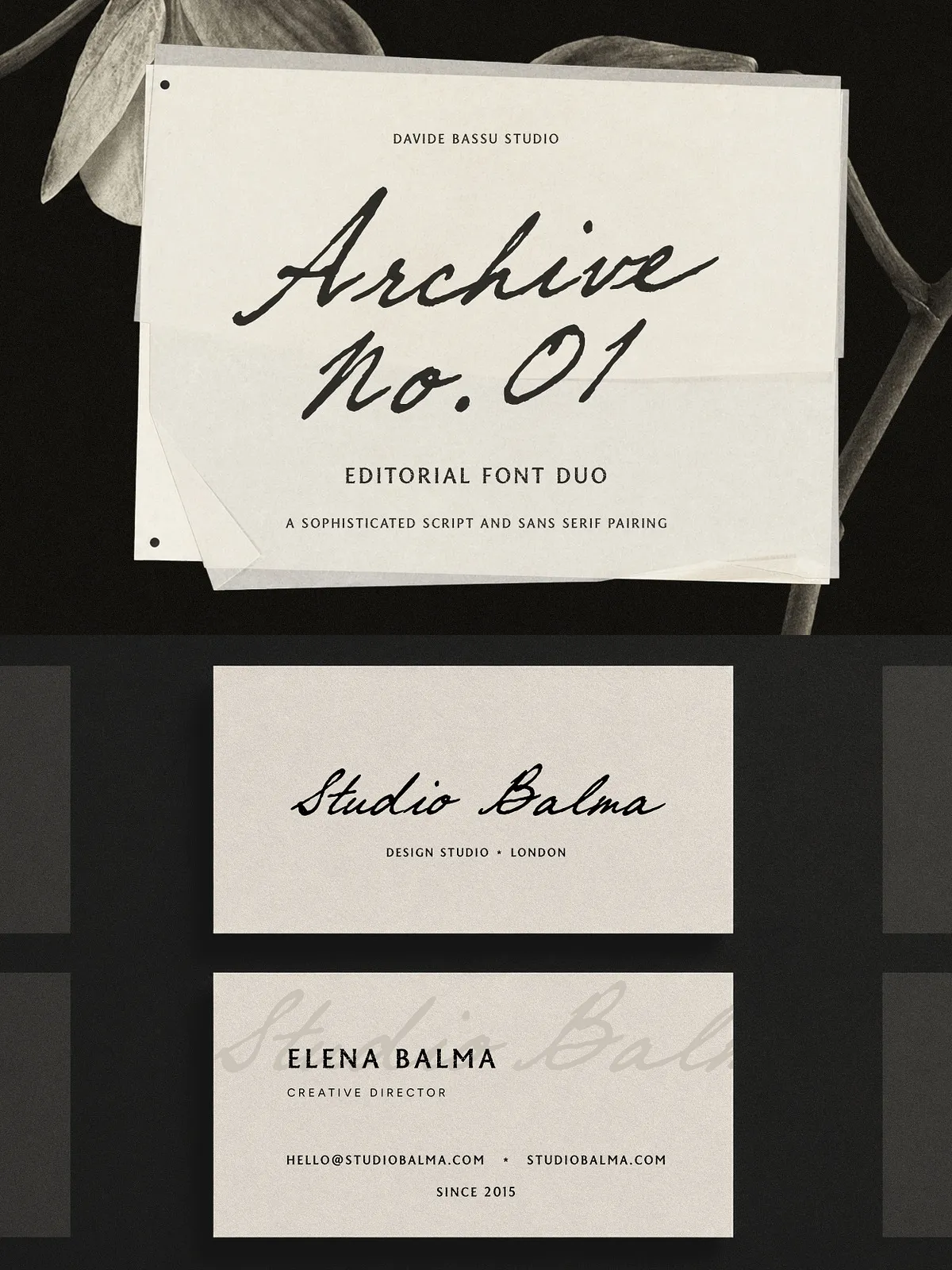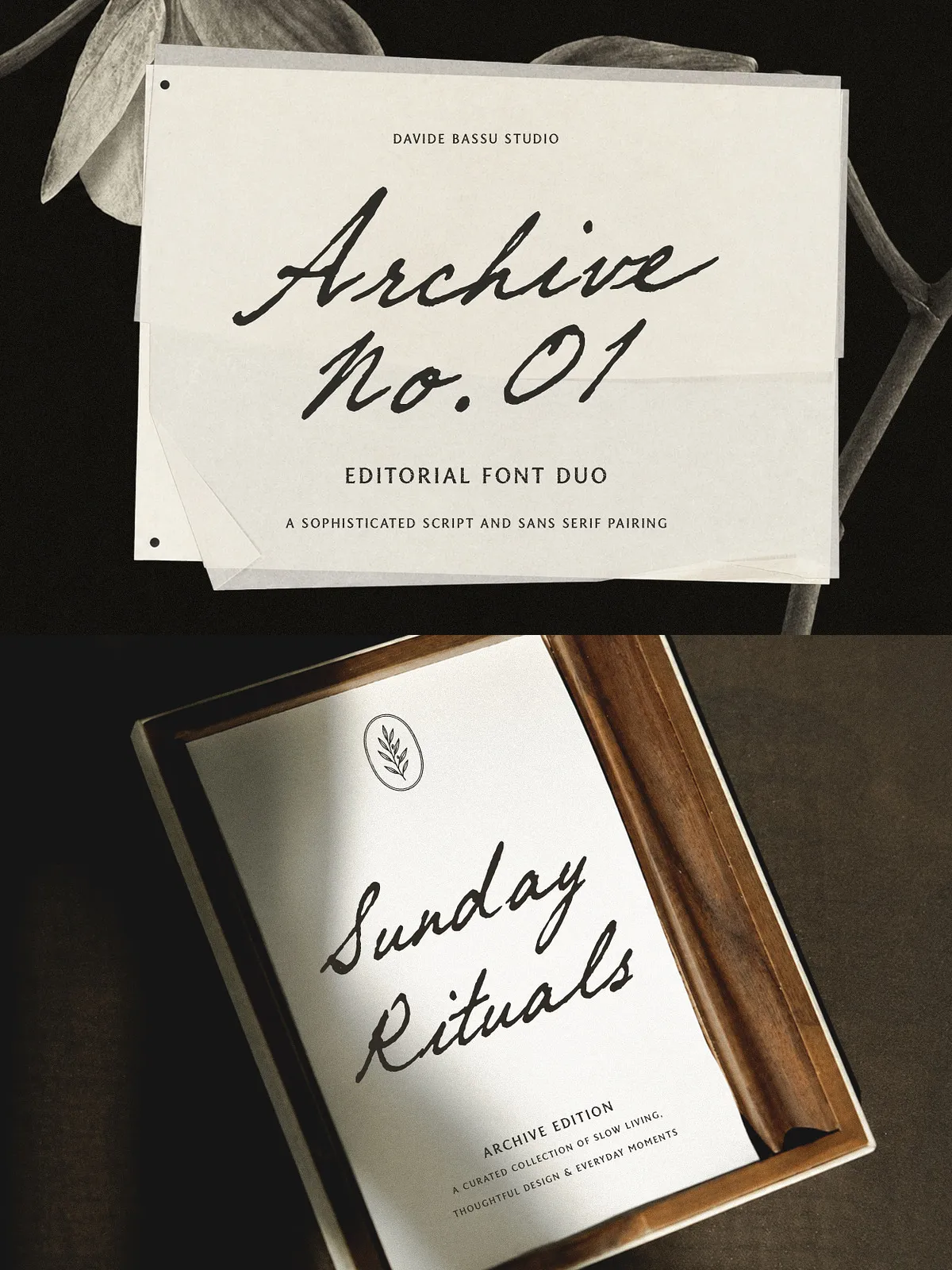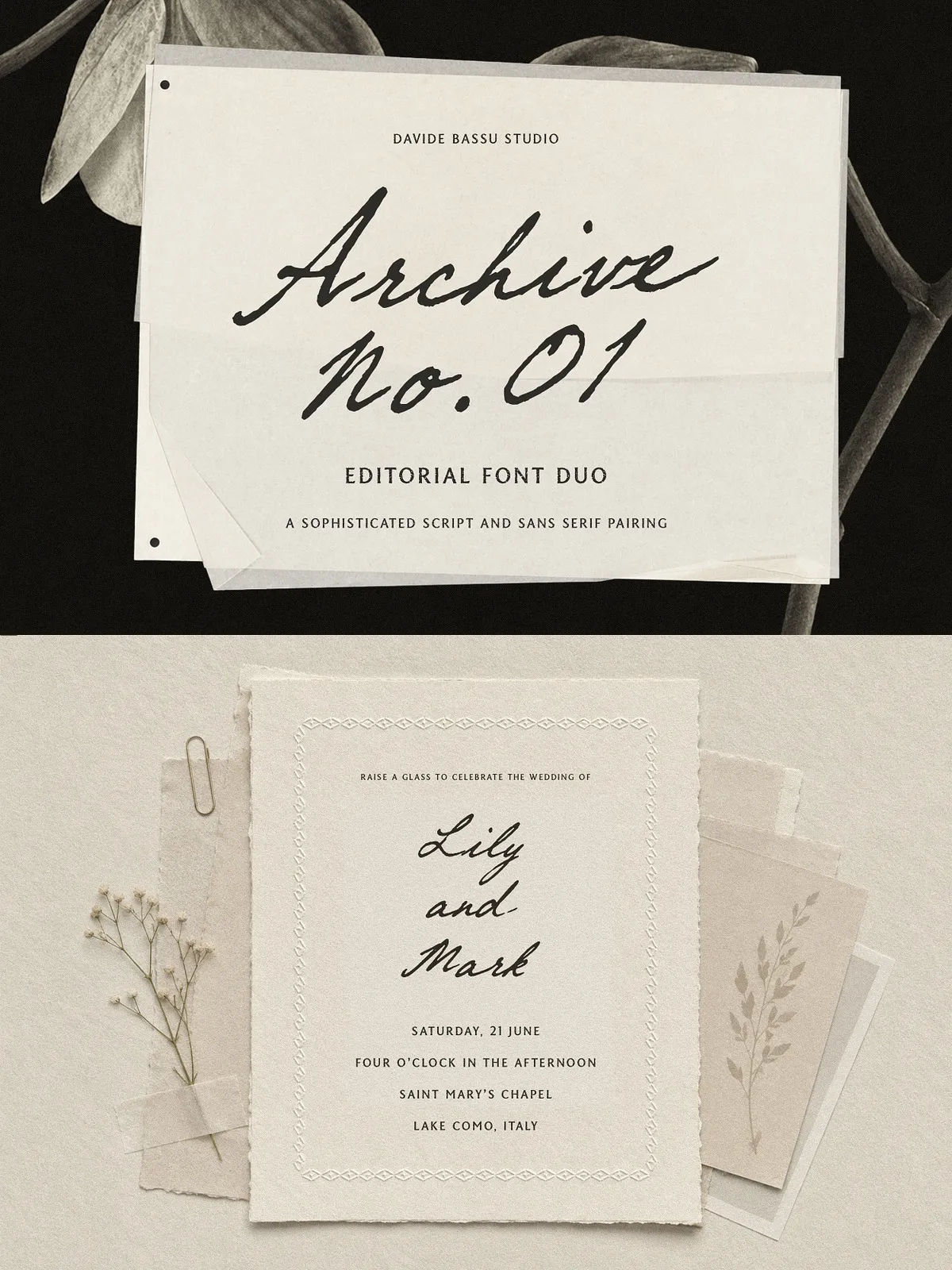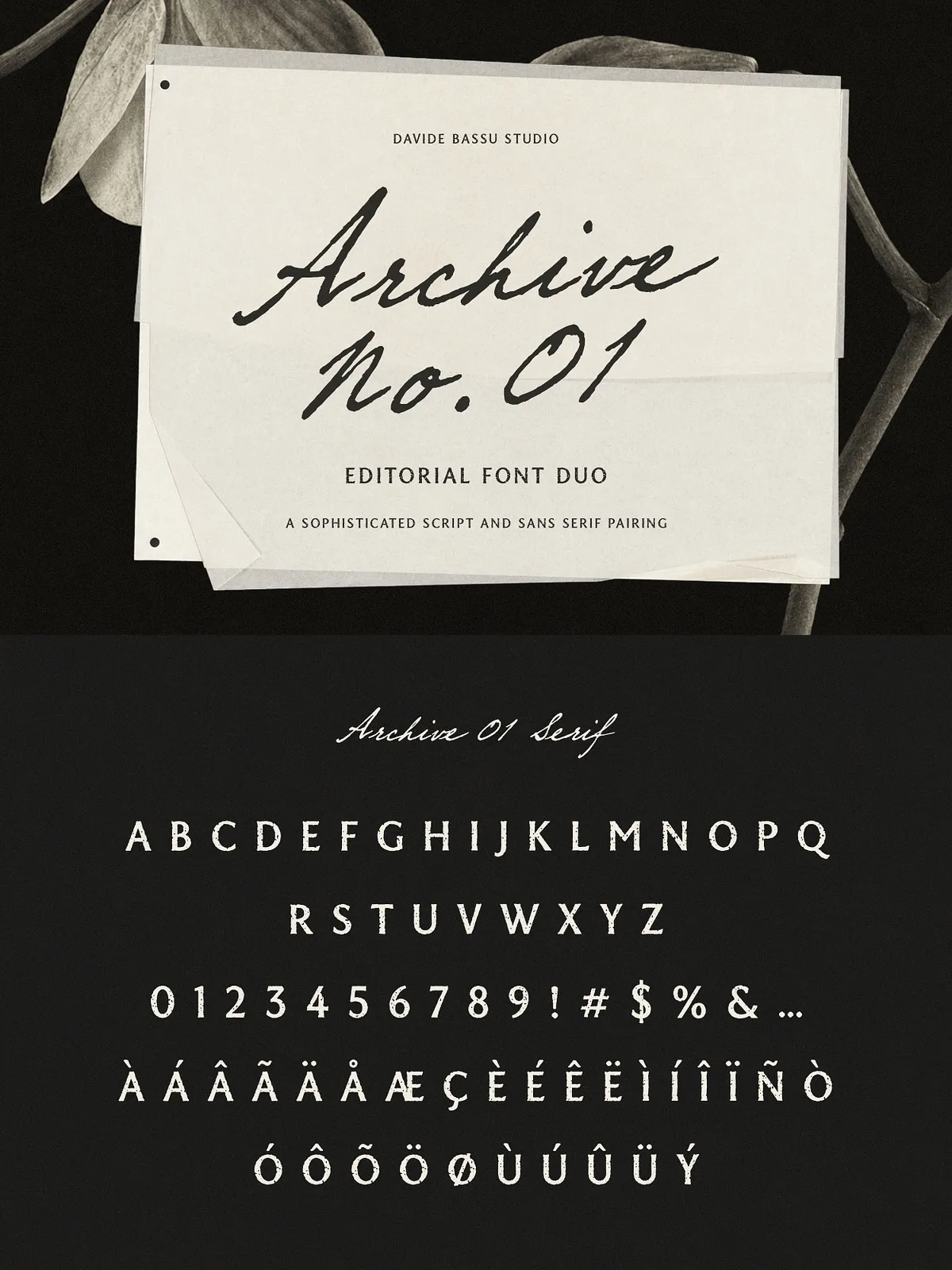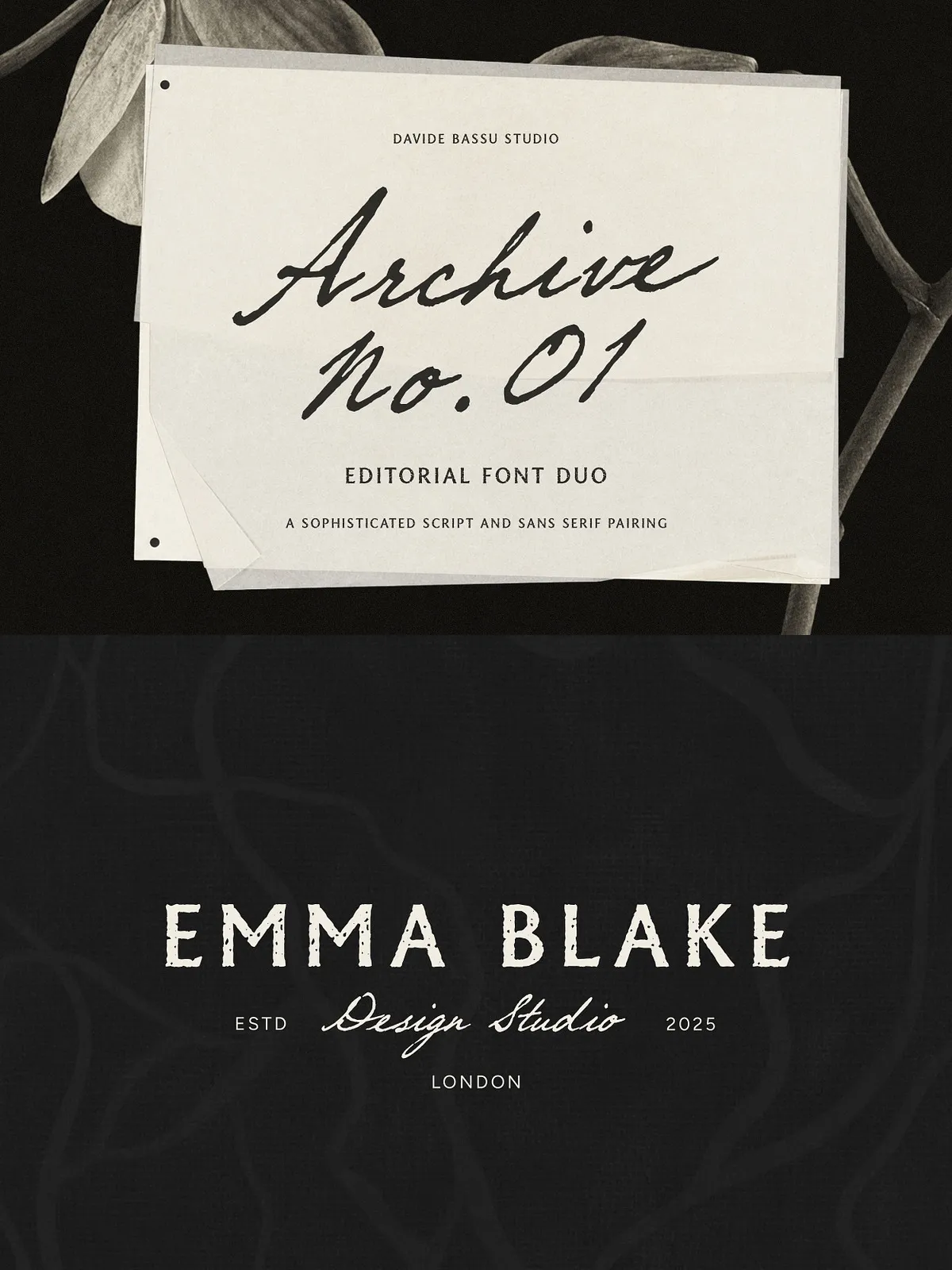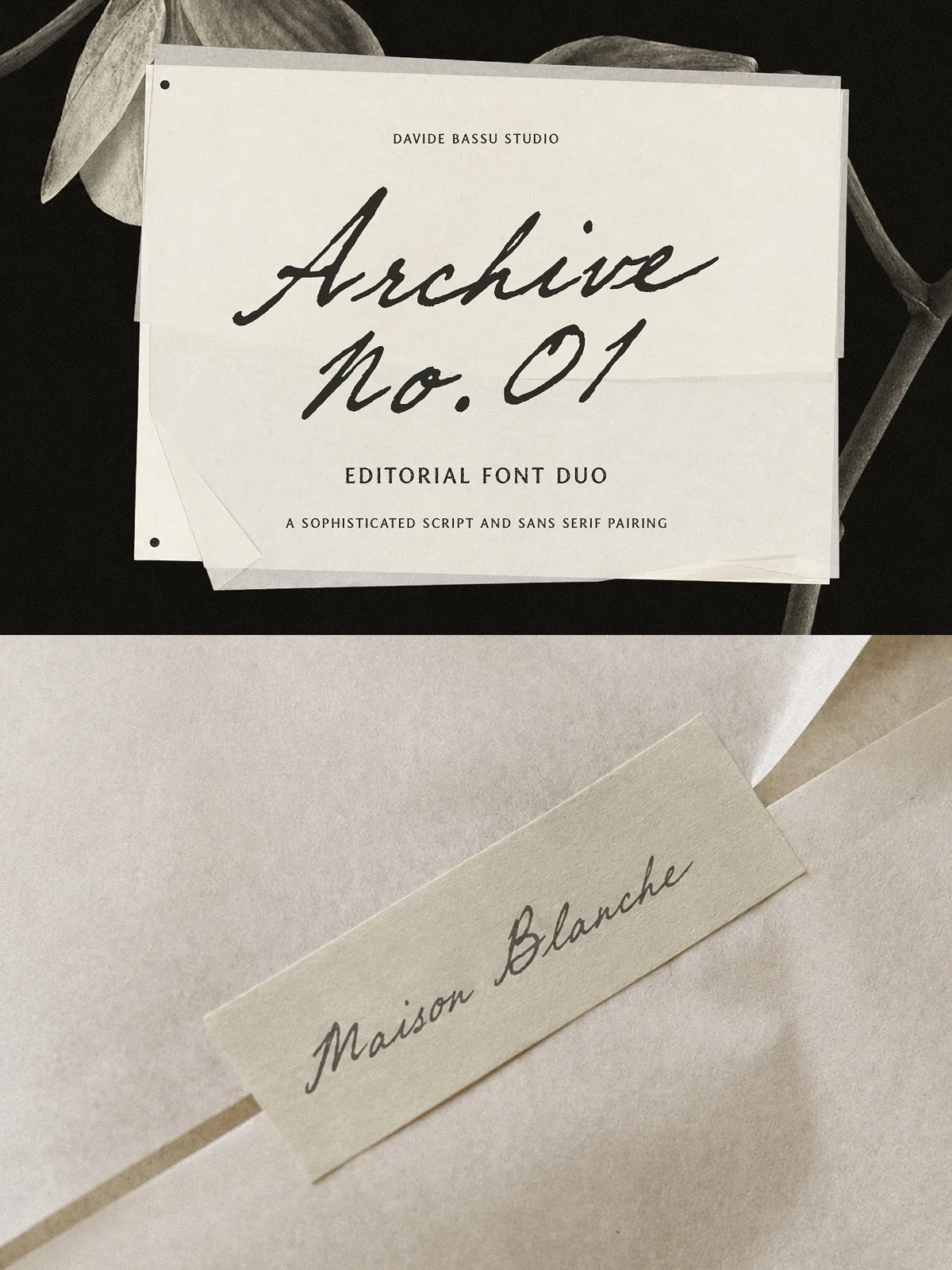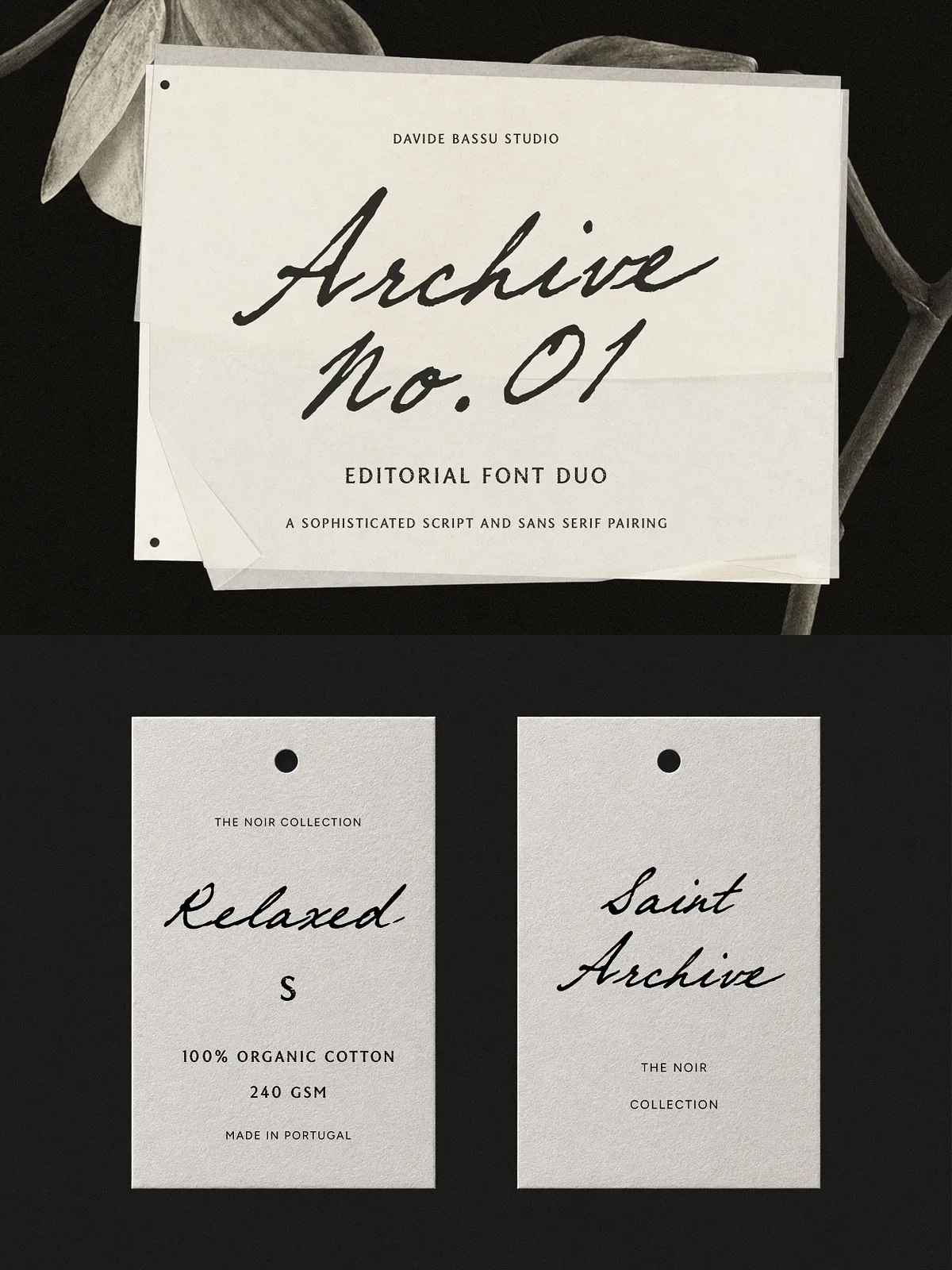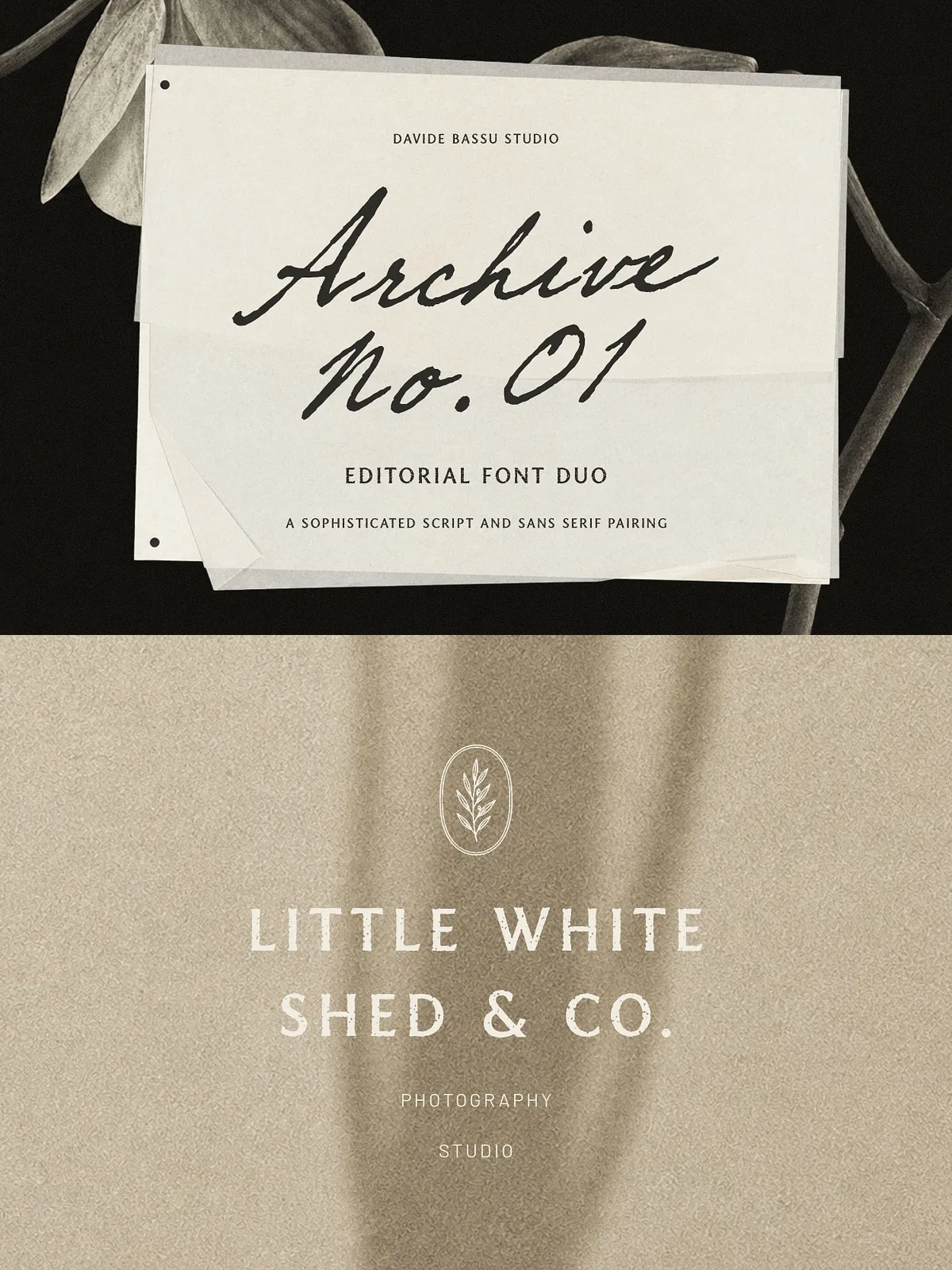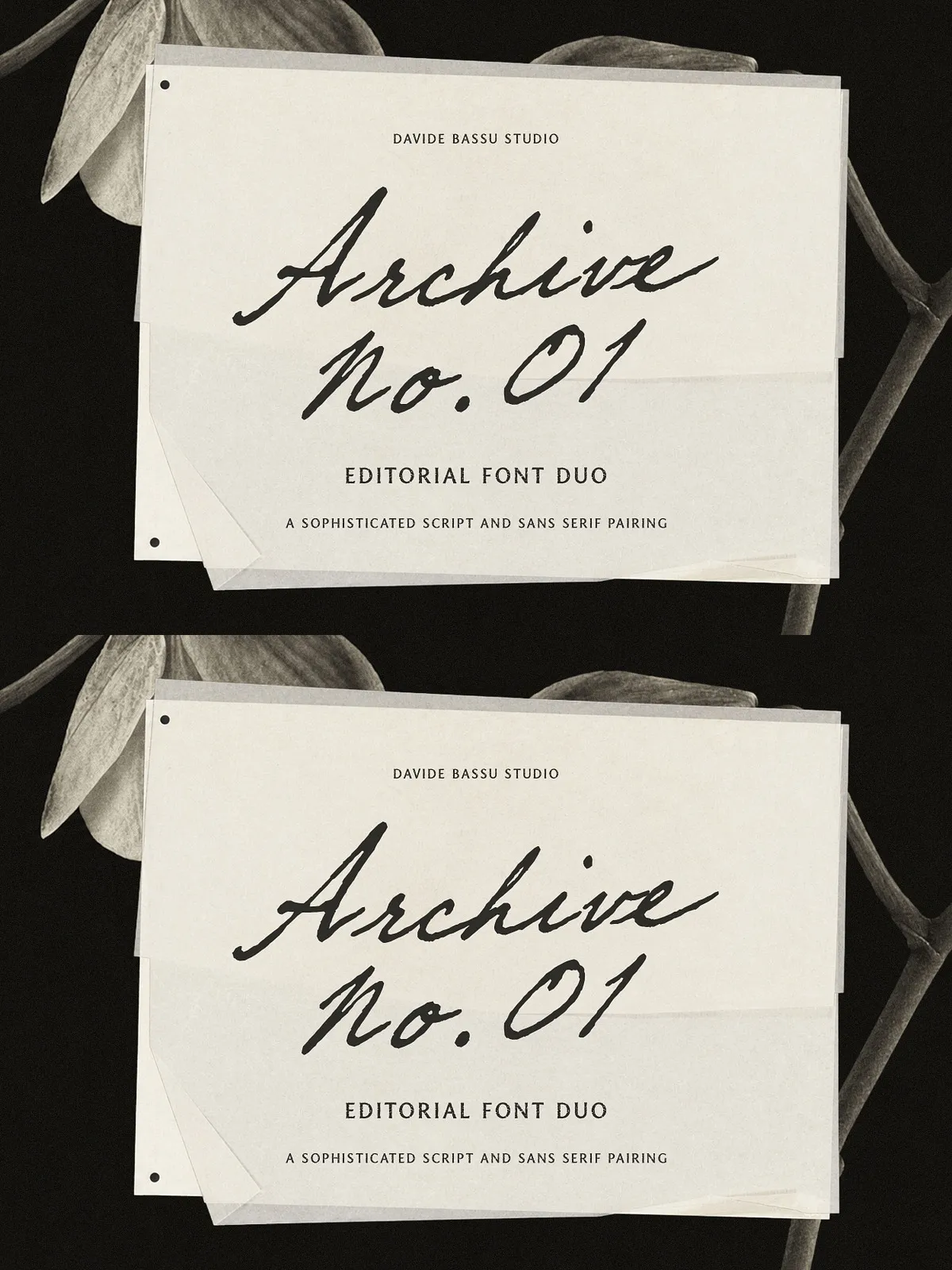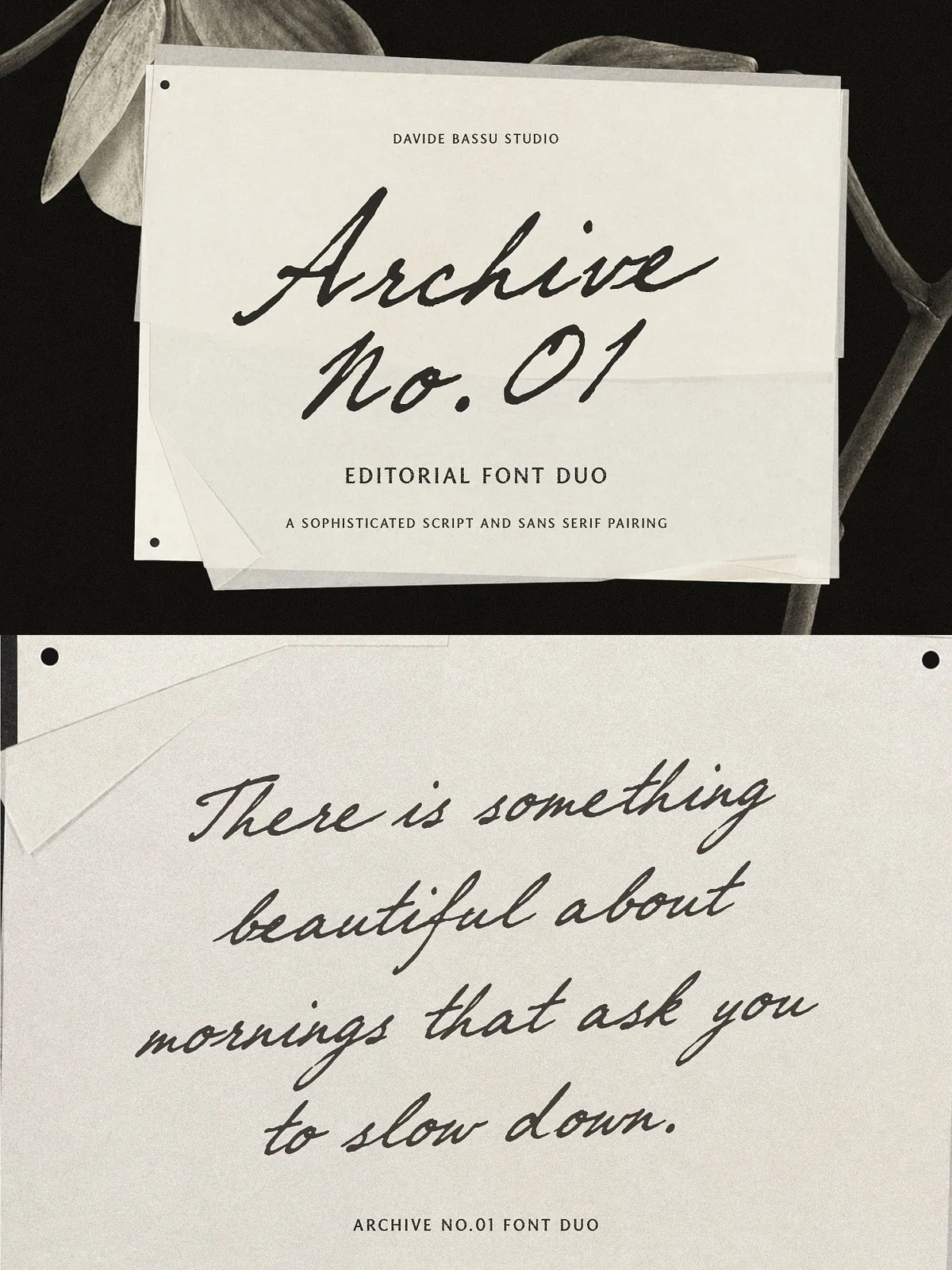
Meet Archive No. 01, a meticulously crafted font duo designed for professionals who value the intersection of classic elegance and contemporary expression. This collection brings together the structural integrity of a high-contrast serif typeface with the fluid personality of an expressive handwritten script, creating a versatile typographic toolkit that adapts seamlessly to your creative vision.
The serif component draws inspiration from traditional editorial design, offering a clean, sophisticated presence that commands attention. Its sharp serifs and varied stroke weights convey authority and luxury, making it an ideal choice for headlines, logos, and high-end marketing materials. Paired with this is the script component, which introduces warmth and organic movement. The script features naturally flowing letterforms that mimic the grace of hand-lettering, adding a touch of human elegance to any design.
Archive No. 01 is not just a font; it is a design solution. Whether you are crafting a brand identity for a fashion house, designing intricate wedding stationery, or laying out a premium magazine, this duo provides the perfect balance of structure and flair. Its ability to bridge the gap between rigid formality and relaxed creativity makes it an essential asset for modern designers.
Key Features and Specifications
Archive No. 01 is built to support a wide range of design workflows, from print to digital. The family is comprehensive, ensuring that you have every character needed for professional, multi-language projects.
- Complete Font Duo: Includes a robust High-Contrast Serif, a Script Regular, and a Script Slanted. This variety allows for dynamic typographic contrast within a single composition.
- Extensive Character Set: Features fully supported Uppercase and Lowercase letters, ensuring that you can create cohesive designs across all alphabetic contexts.
- Numbers & Punctuation: Includes complementary numerals and punctuation marks that match the style and weight of the lettering, maintaining visual consistency.
- Western European Language Support: Extensive support for Western European languages means you can use Archive No. 01 in global projects without compromising on typography or readability.
Ideal Applications for Archive No. 01
The versatility of Archive No. 01 makes it suitable for a diverse array of industries and project types. Here is how you can leverage this font duo to enhance your designs.
1. Luxury Branding and Fashion
Use the high-contrast serif to establish a strong brand presence, and pair it with the script for product names or taglines. Archive No. 01 is perfect for fashion labels, boutique packaging, and luxury apparel brands that need to convey exclusivity and taste.
2. Wedding Stationery and Invitations
Create memorable wedding invitations, save-the-dates, and thank-you cards. The Script Regular offers a classic romantic feel, while the Script Slanted adds a dynamic, energetic flair. The serif provides a stable foundation for names and dates, ensuring readability and elegance.
3. Editorial and Magazine Design
Enhance magazine layouts, lookbooks, and editorial spreads. The serif typeface excels in headlines and pull quotes, drawing the reader’s eye, while the script can be used for captions, pull-quotes, or decorative elements that add personality to the page.
4. Interior Design and Real Estate Presentations
Produce sophisticated presentations for interior designers and real estate firms. Archive No. 01’s clean lines and luxurious feel communicate professionalism and high standards, making it ideal for brochures, portfolios, and marketing materials in these sectors.
5. Digital and Social Media Graphics
6. Premium Marketing Materials
From business cards to letterheads, Archive No. 01 elevates every touchpoint. The combination of serif and script adds depth to corporate identity systems, making brands appear more established and trustworthy.
Why Choose Archive No. 01?
In a market saturated with generic typefaces, Archive No. 01 stands out for its intentional design and versatile duality. It allows designers to move beyond the limitations of single-style fonts by offering a complete typographic ecosystem. The inclusion of the Slanted script variant adds a unique layer of creative control, enabling designers to shift tones from formal to playful instantly.
By choosing Archive No. 01, you are investing in a font family that respects tradition while embracing modern versatility. It supports the diverse needs of global designers, ensuring that every project, whether a local boutique campaign or an international magazine spread, benefits from its refined aesthetic.